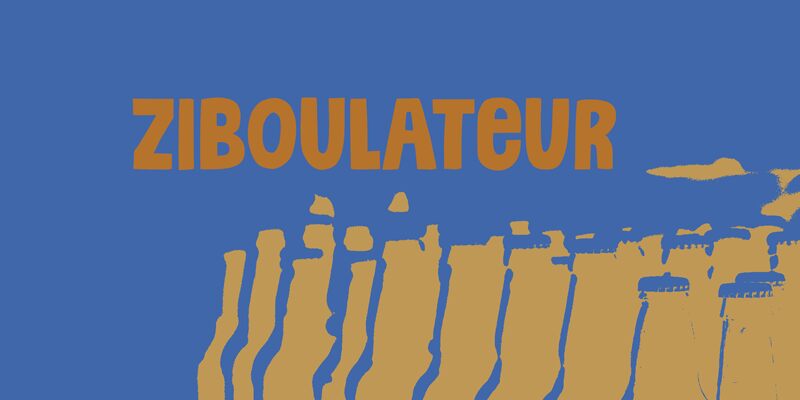
Ziboulateur DEMO Regular
Ziboulateur, the bold and quirky display font designed by D K, is the perfect choice for projects that aim to stand out and make a lasting impression. With its semi-condensed width and playful comic style, this font is ideal for creating eye-catching headlines, logos, posters or packaging designs. Its bold weight ensures that your message will be seen loud and clear, while the unique character shapes add a touch of fun to any project. Whether you're designing for a children's book or a trendy fashion brand, Ziboulateur is sure to bring personality and charm to your creative work.